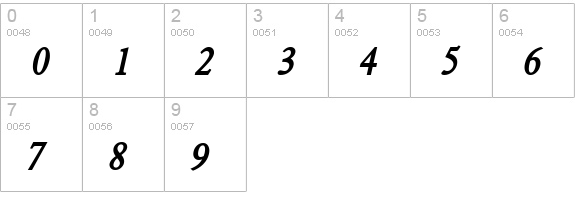
Nadine Condensed BoldItalic Font Details
Nadine Condensed BoldItalic is a distinctive, condensed-width variant in the Nadine typeface family \xE2\x80\x94 well suited to design and typography projects.
Nadine Condensed BoldItalic font is a stylish and modern typeface that exudes confidence and sophistication. With its bold curves and elegant slant, this font is perfect for making a statement in any design project. Whether you are creating a logo, poster, or website, Nadine Condensed BoldItalic will add a touch of flair and personality. The best part is that Nadine Condensed BoldItalic font is completely free to download at FontsMarket.com. This means you can easily access this versatile typeface and elevate your creative projects without any additional cost. Don't miss out on the opportunity to enhance your designs with the bold and italic charm of Nadine Condensed BoldItalic font - download it today and let your creativity shine!